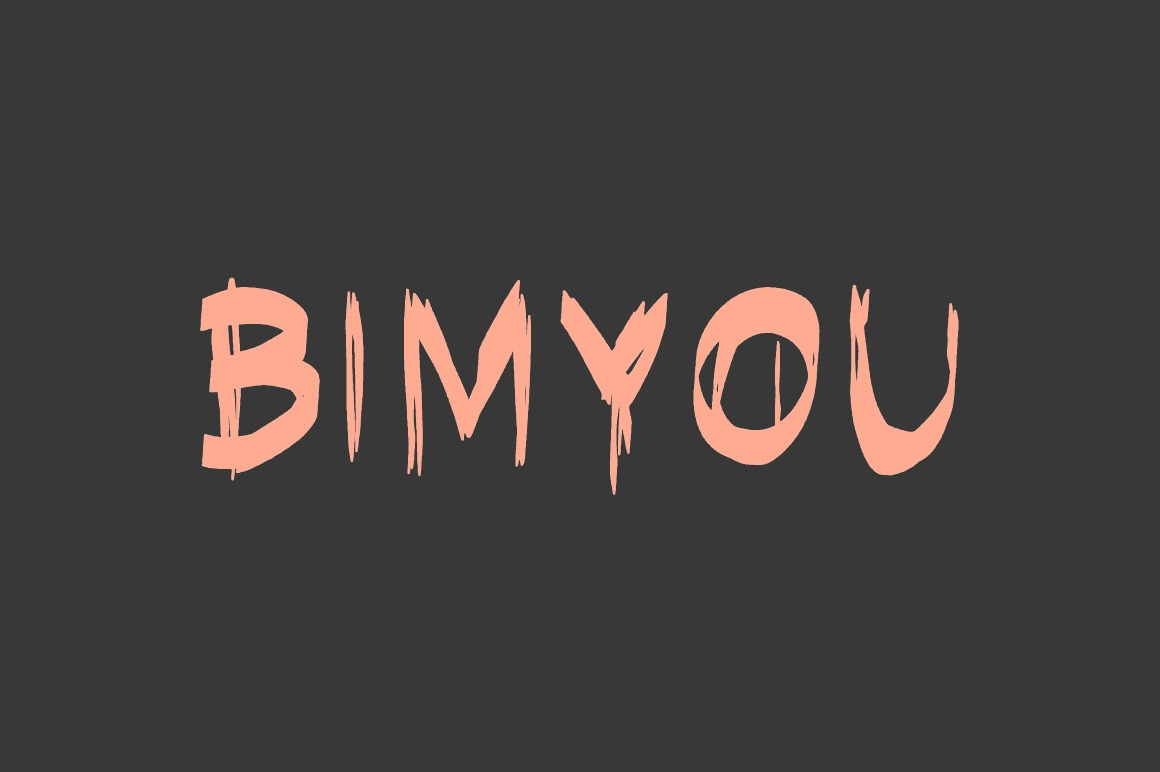
Bimyou Font
Introducing Bimyou, a simple but cook and easy to read, graffiti font. Script, handwritten, handmade. Inspired by radical graffiti. As always was made with love.